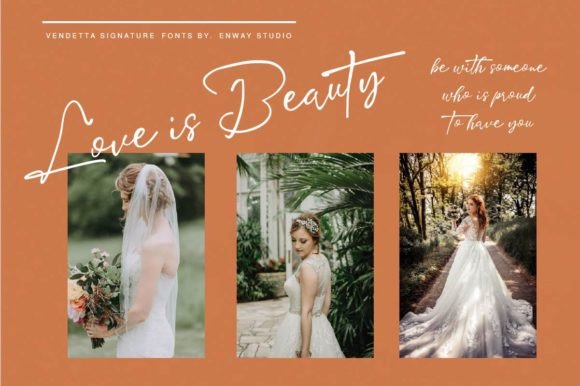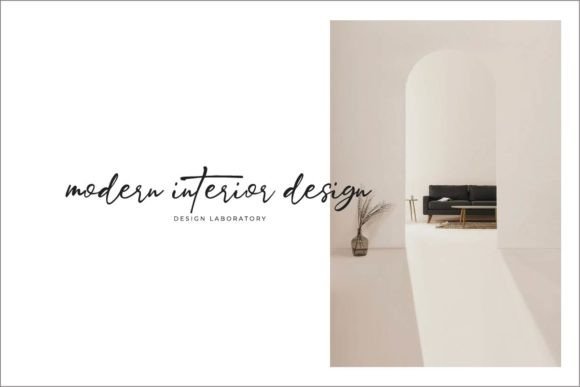
About Vendetta Signature Font
Vendetta Signature is a sophisticated and elegant script font that adds a touch of refinement and luxury to your design projects. With its polished and stylish appearance, this font is perfect for creating wedding invitations, cards, and other designs that require a romantic and personalized touch.
The beauty of Vendetta Signature lies in its delicate and flowing letterforms. Each letter is carefully crafted with smooth curves and fine details, creating an exquisite and harmonious script. The font’s refined and polished look makes it suitable for a range of formal occasions, particularly wedding-related designs where elegance and sophistication are desired.
When used in wedding invitations, Vendetta Signature adds a sense of romance and luxury. The graceful strokes and fluid connections between letters create a sense of movement and elegance, enhancing the overall aesthetic of the invitation. Whether you’re designing for a traditional wedding or a modern celebration, this font will elevate the sophistication and charm of your designs.
In addition to wedding invitations, Vendetta Signature is also well-suited for creating cards and other stationery items. The script’s dainty and fashionable style adds an air of exclusivity and refinement to your card designs, making them truly special and memorable. Whether it’s a birthday card, anniversary card, or any other occasion, this font brings an element of elegance and personalized touch.
Vendetta Signature is versatile enough to be used in various design projects beyond weddings and cards. Its refined and polished look can be applied to branding materials, logos, packaging, and more, where a touch of sophistication is desired. The font’s customizable nature allows you to experiment with different sizes, colors, and layouts to create a unique and visually appealing design.
Overall, Vendetta Signature is a beautiful script font that exudes elegance, refinement, and a touch of romance. Its dainty and fashionable style makes it an excellent choice for wedding invitations, cards, and any design that requires a sophisticated and customized touch. With its polished appearance and versatile usage, Vendetta Signature is sure to enhance the overall aesthetic of your projects and leave a lasting impression on your audience.